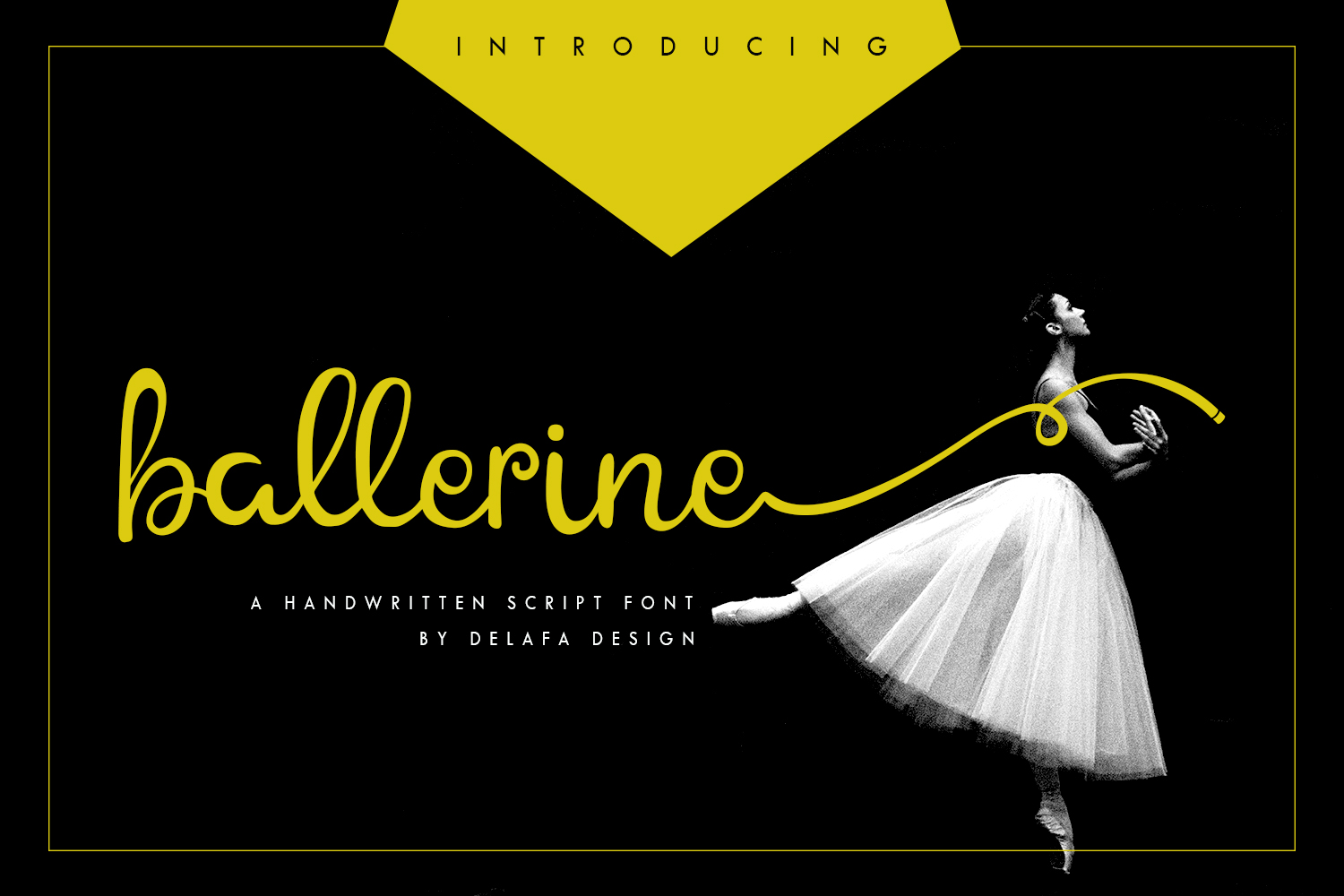
Ballerine Script
Ballerine Script Font
Introducing
our product: Ballerine Script! Stylish
and fashionable handwritten script fonts. Ballerine is perfect for branding,
magazines, social media, advertisements, event invites, or any business that
wants to appear stylish and chic.